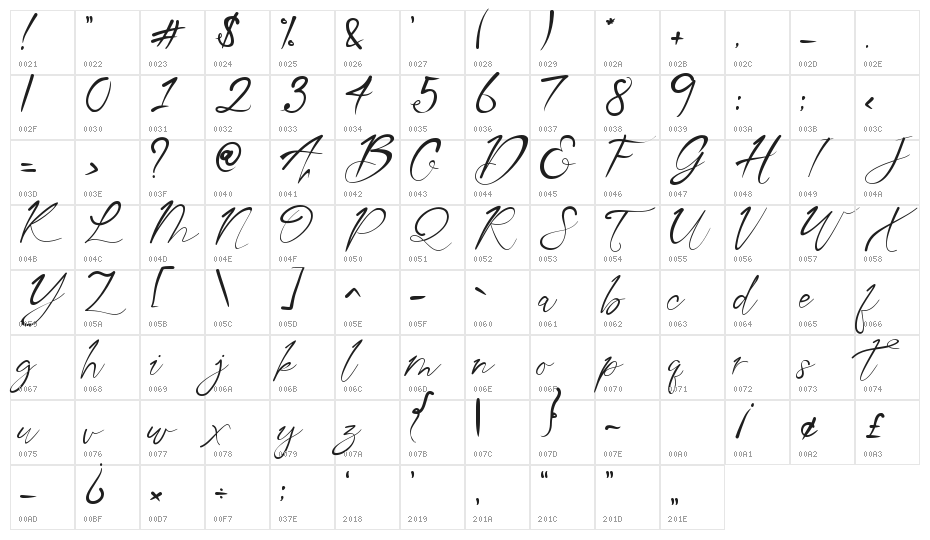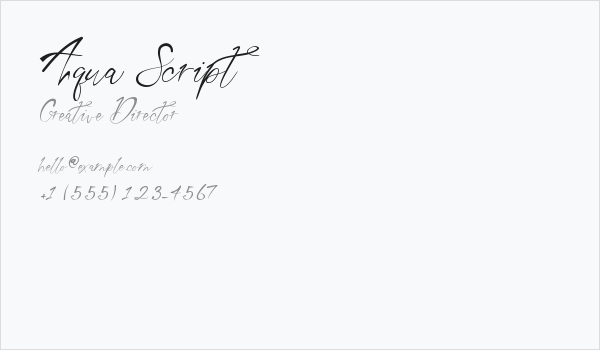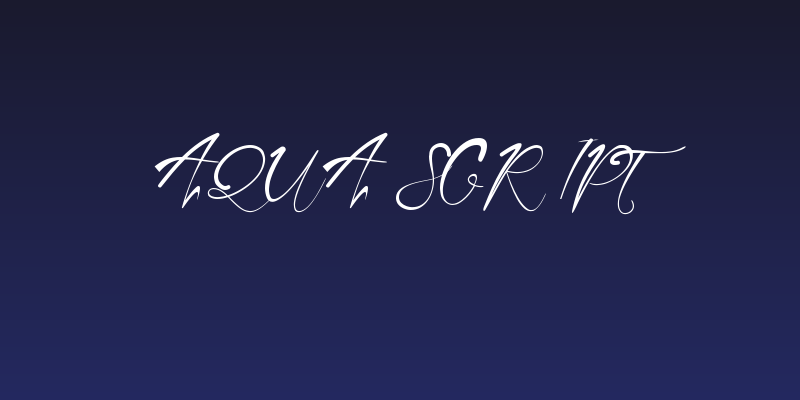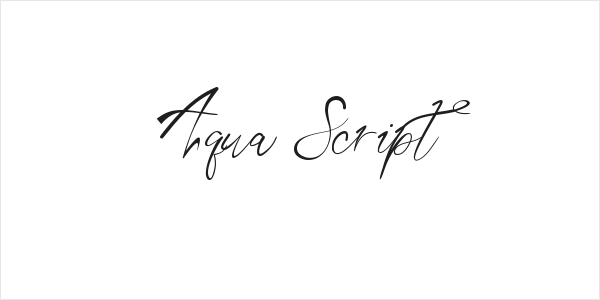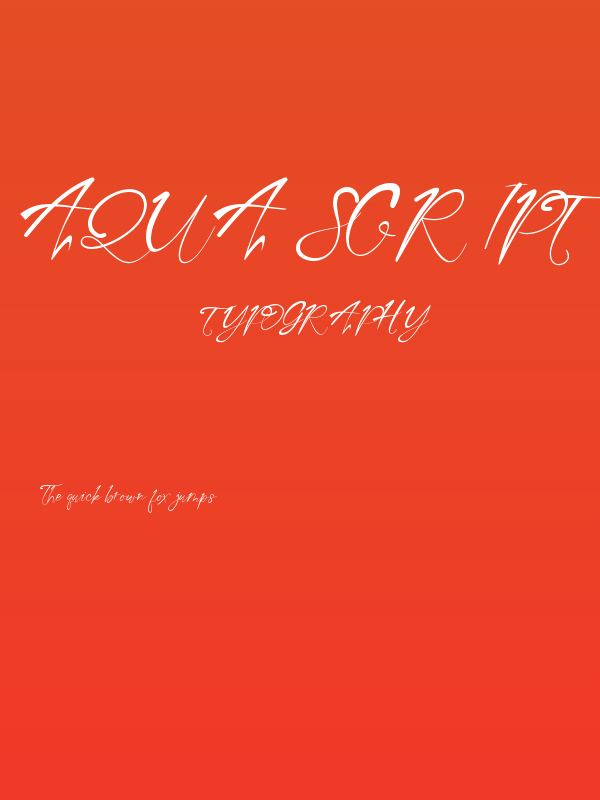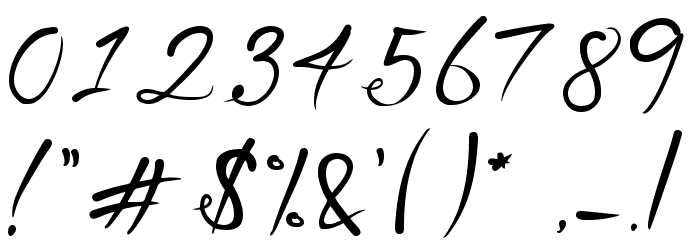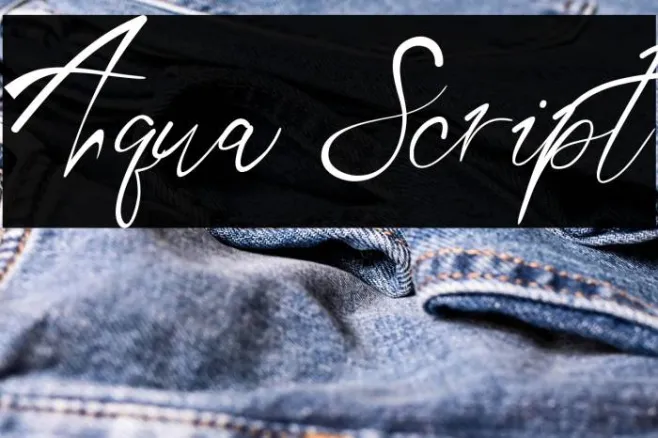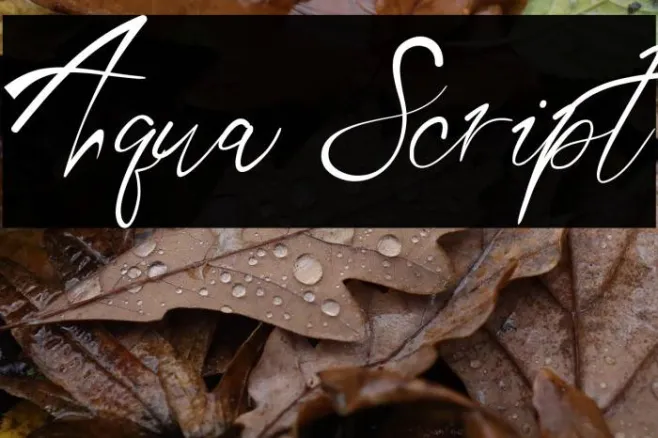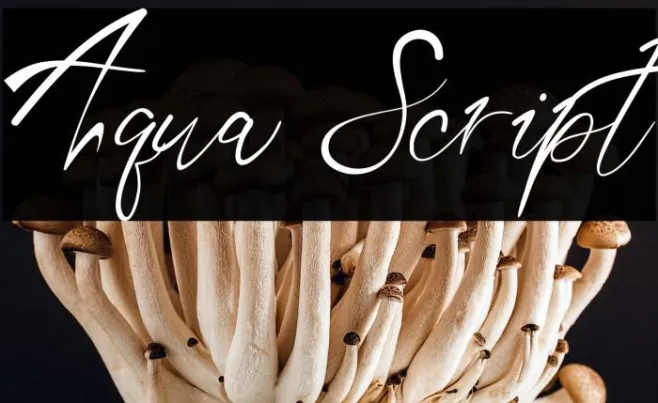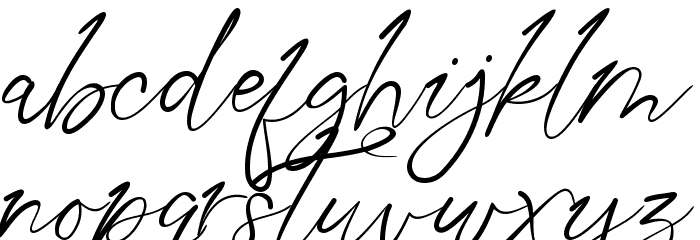
Aqua Script Font
Aqua Script Description
This elegant script font features fluid, flowing lines that mimic the natural movement of handwriting. The uppercase letters are characterized by their sweeping curves and loops, giving them a sophisticated and graceful appearance. The lowercase letters maintain a consistent style, with elongated ascenders and descenders that add to the font's overall elegance. The numerals are designed to complement the letters, with similar curves and a balanced structure. Special characters are seamlessly integrated, maintaining the font's cohesive look. This font is perfect for projects that require a touch of class and elegance, such as wedding invitations, formal event programs, or luxury branding.
| Overall Style | Elegant, Sophisticated |
| Use Case | Headlines, Invitations, Branding |
| Proposed Projects | Ideal for wedding invitations, formal event programs, luxury branding, and elegant stationery. |